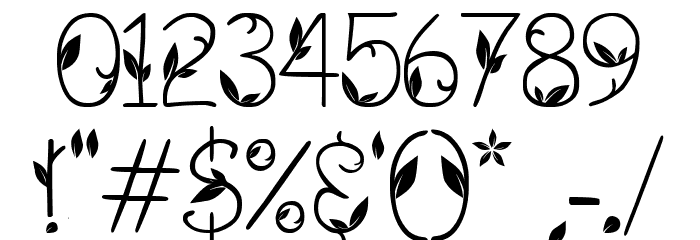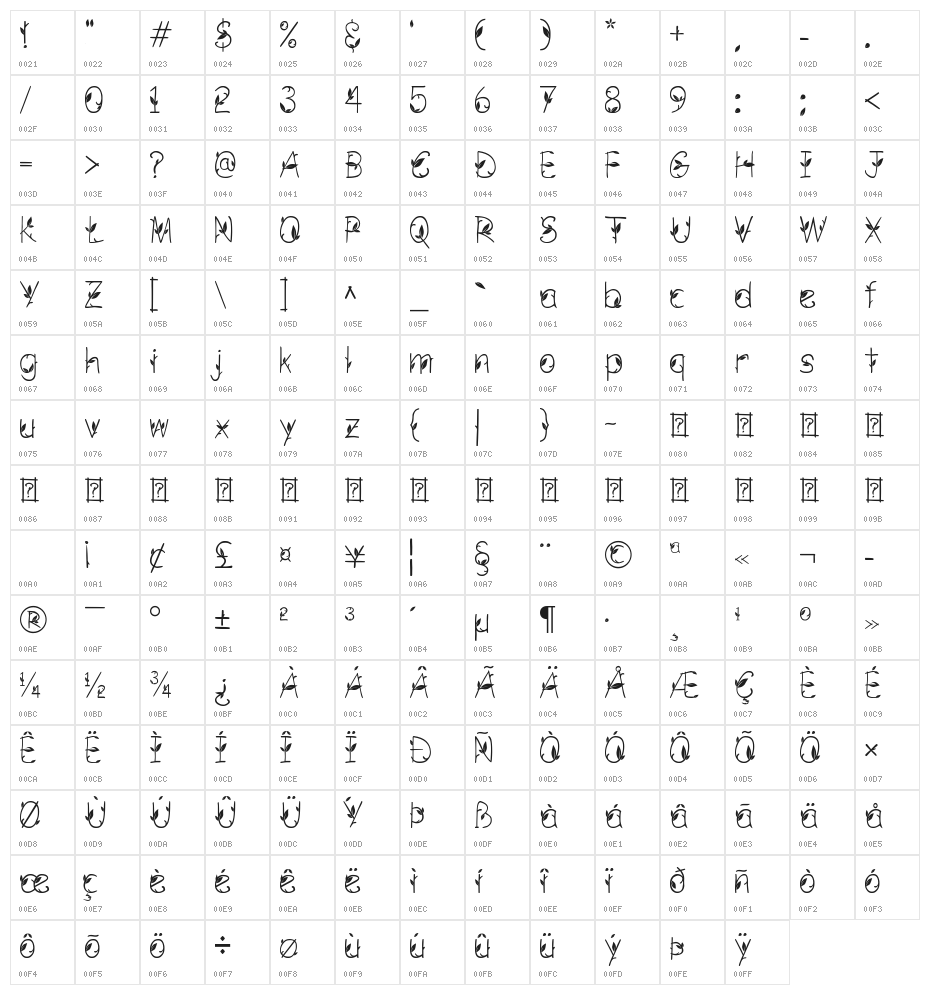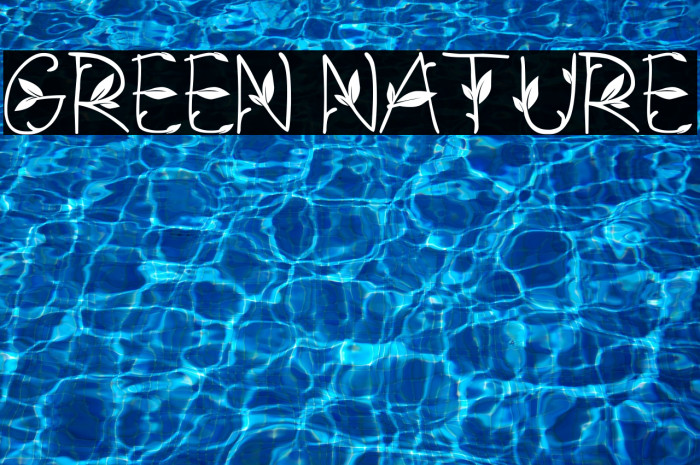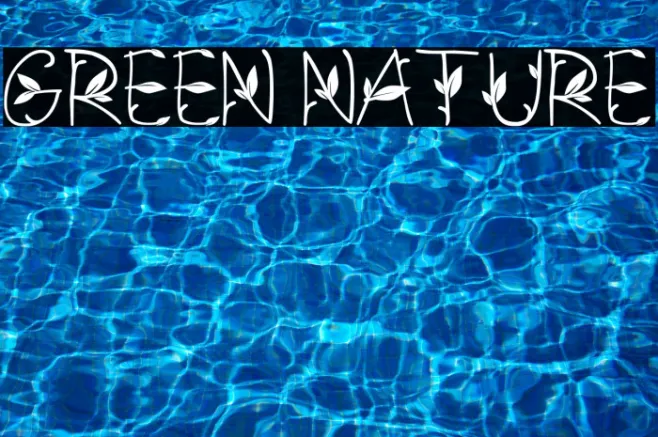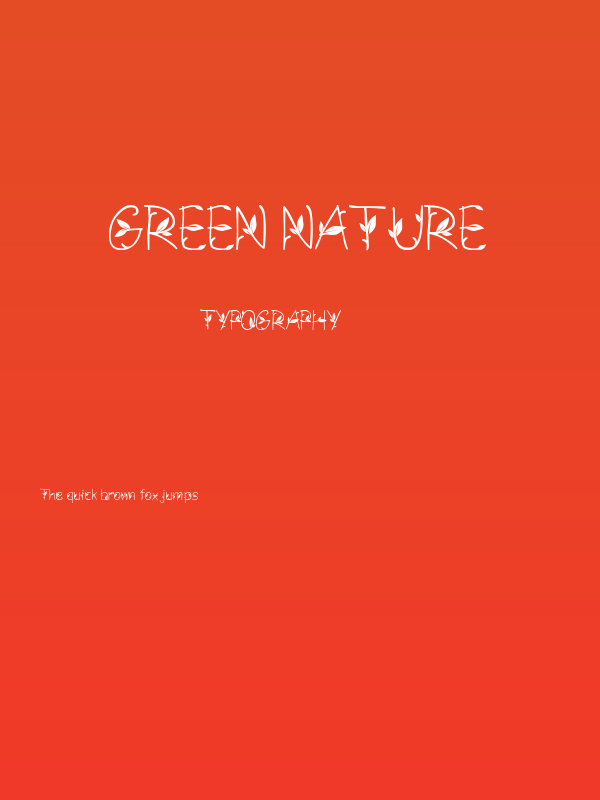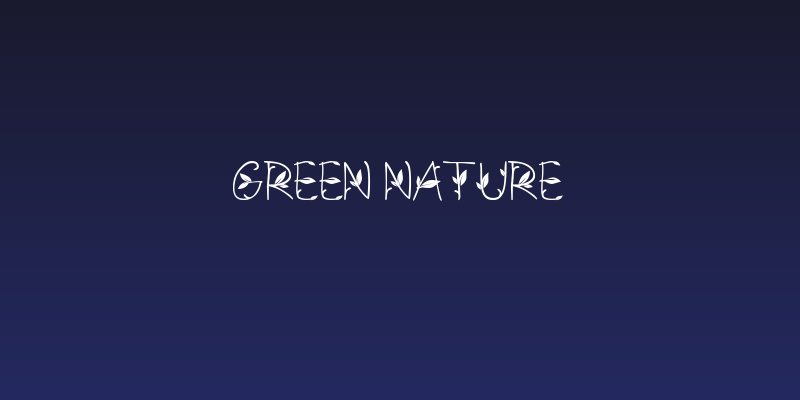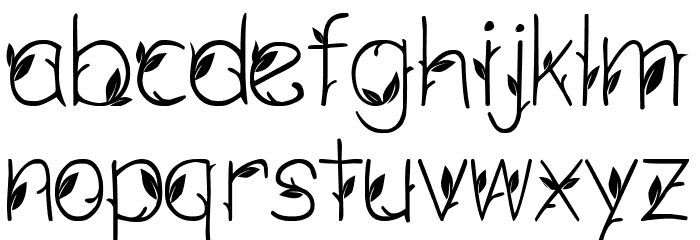
GREEN NATURE Font
GREEN NATURE Description
This font features a unique and decorative style that incorporates elements of nature into each character. The letters are adorned with leaf motifs, giving them an organic and whimsical appearance. The design is playful yet elegant, with a consistent theme of foliage that runs through both uppercase and lowercase letters, as well as numbers and special characters. The strokes are moderately thick, providing a bold presence while maintaining a delicate balance with the intricate leaf details. This font is ideal for projects that aim to convey a sense of nature, growth, or environmental themes.
| Proposed Projects | Perfect for eco-friendly branding, nature-themed event invitations, organic product packaging, and environmental awareness campaigns. |